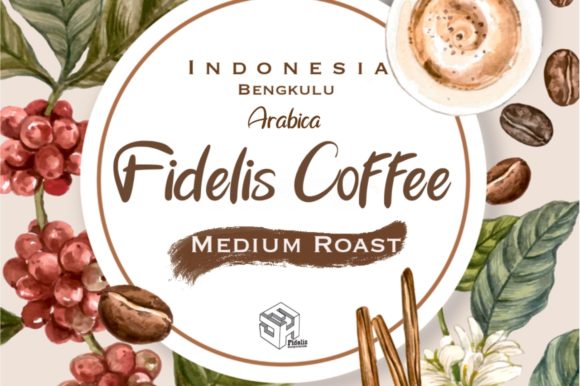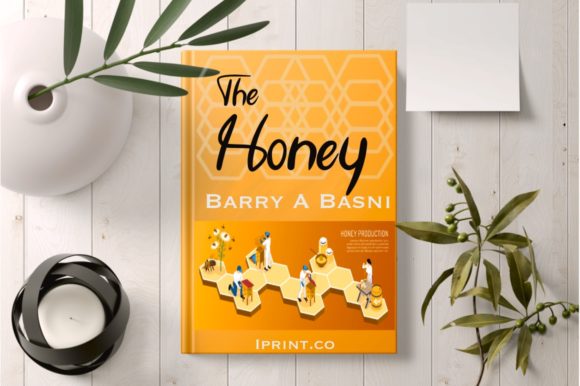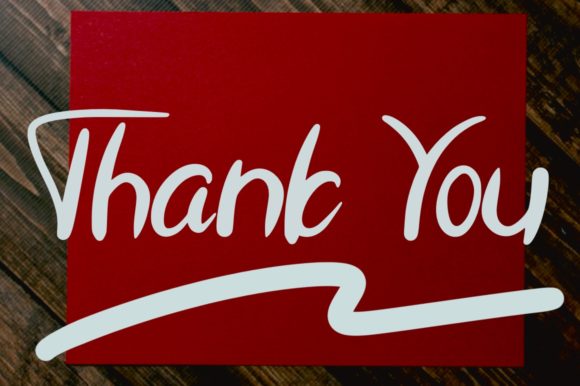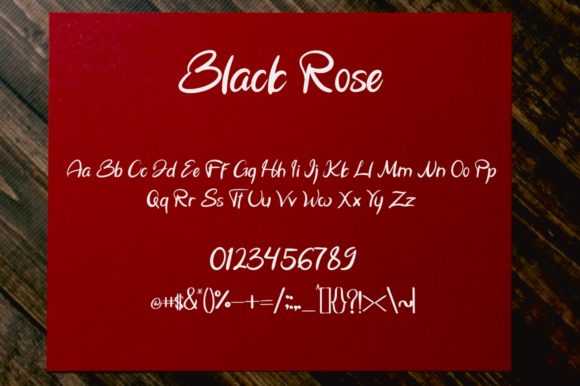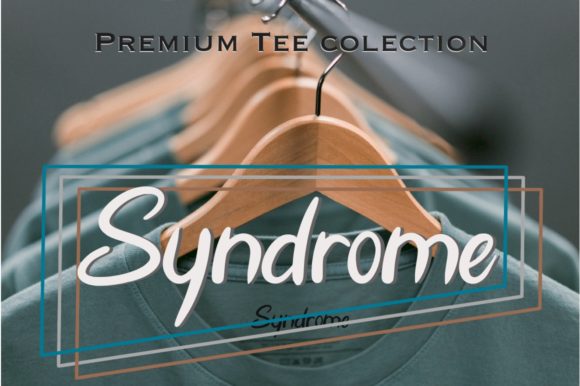
Black Rose Font
About Black Rose Font
Black Rose is a sweet, round lettered handwritten font. Its flowing and distinct style makes this font incredibly fitting to a wide pool of projects. Black Rose will look outstanding in any context, whether it’s being used on busy backgrounds or as a standalone headline!